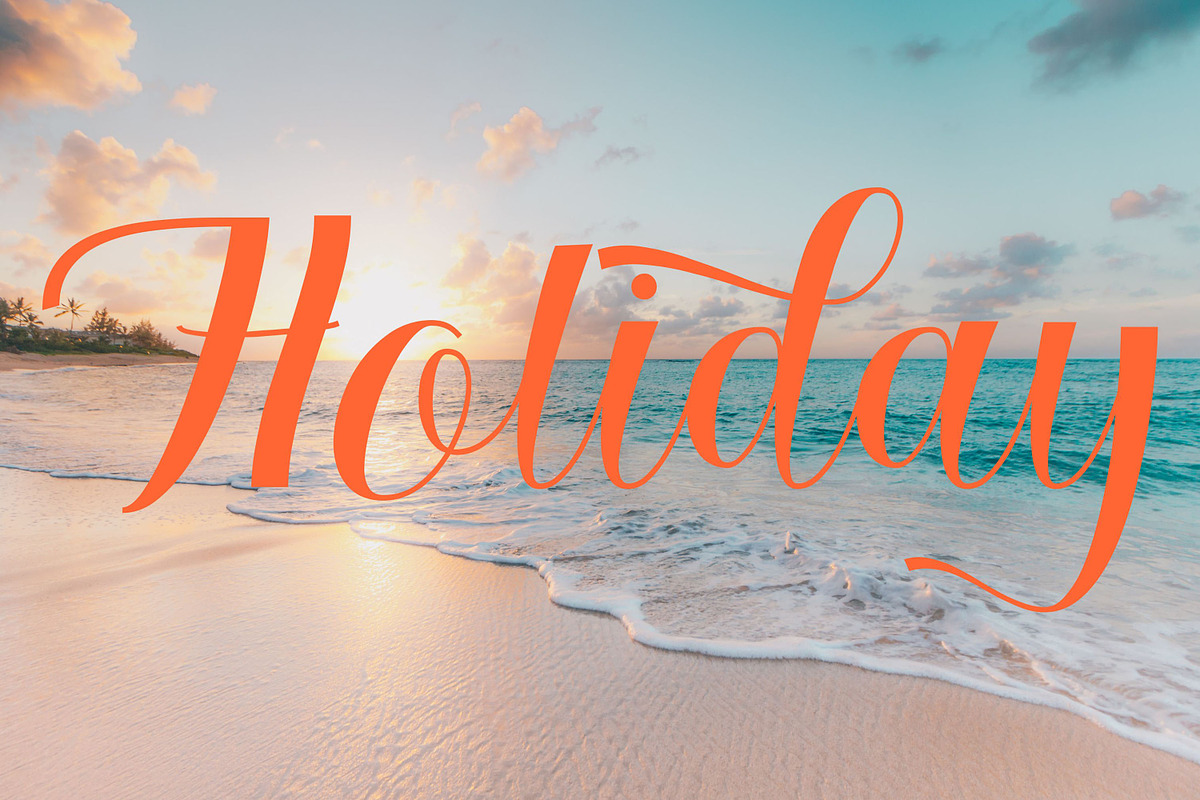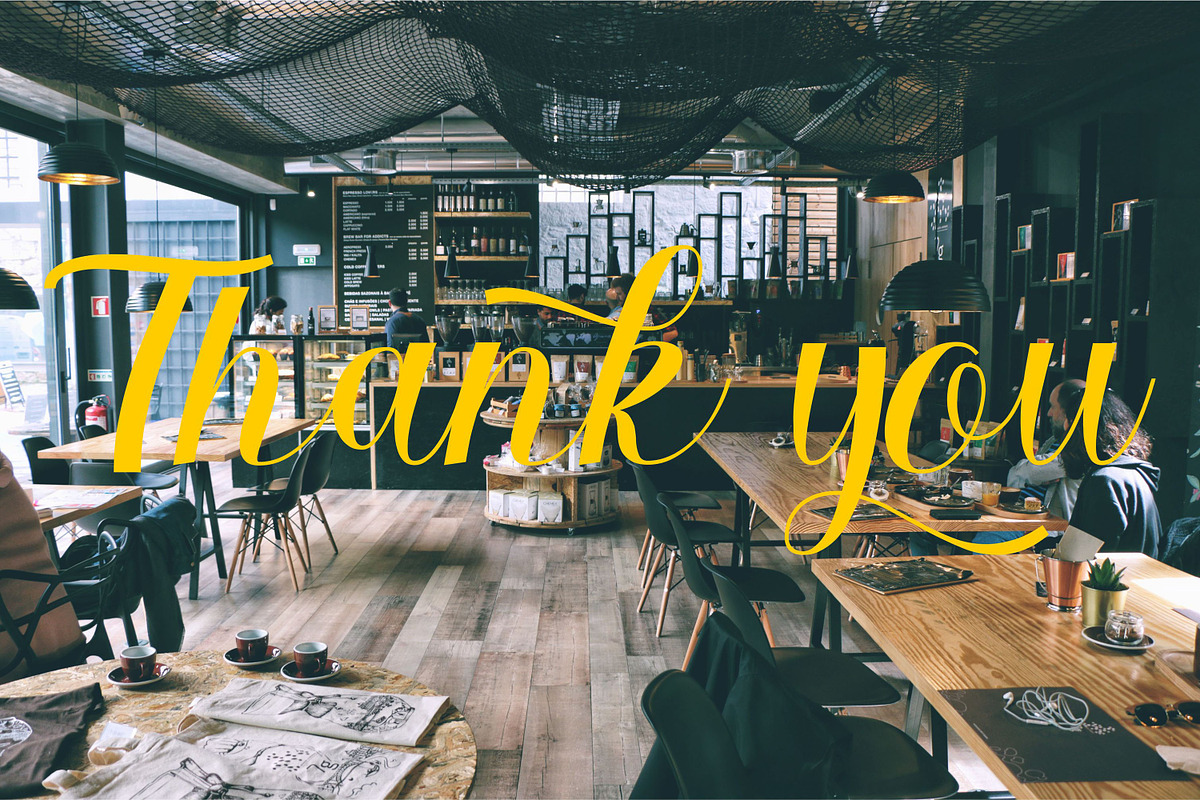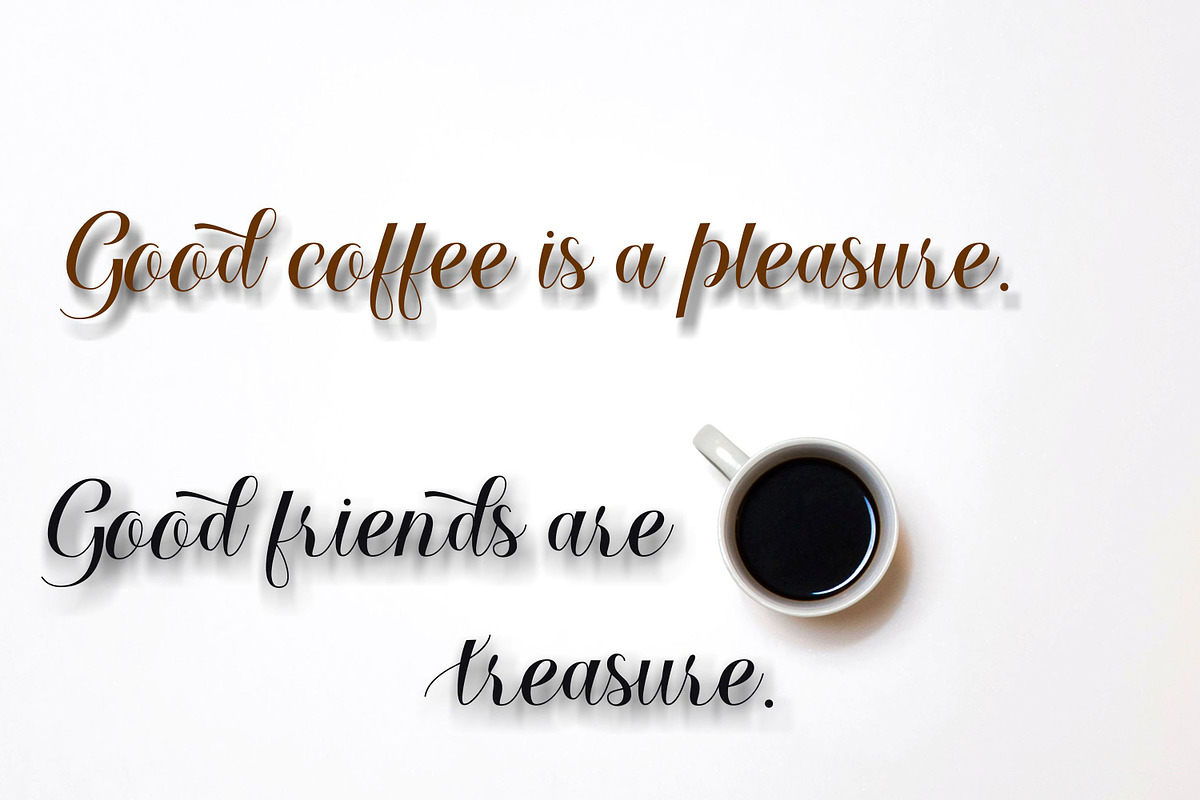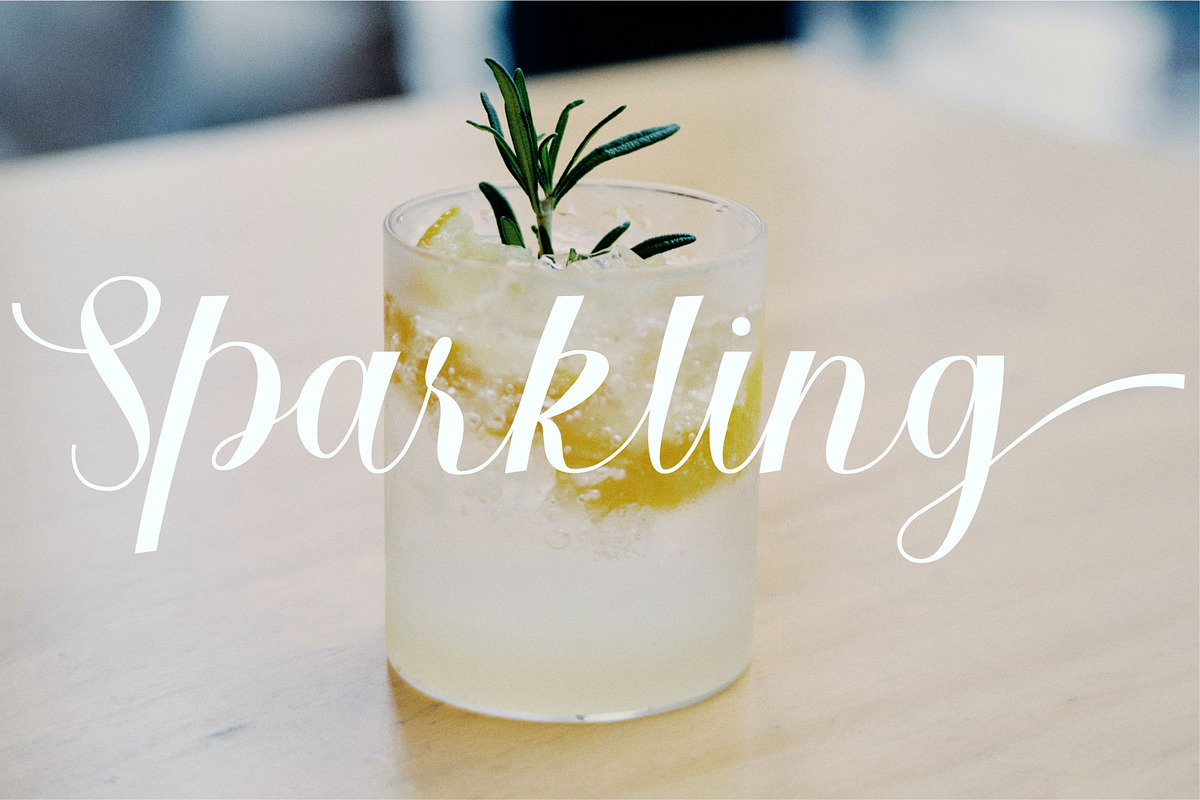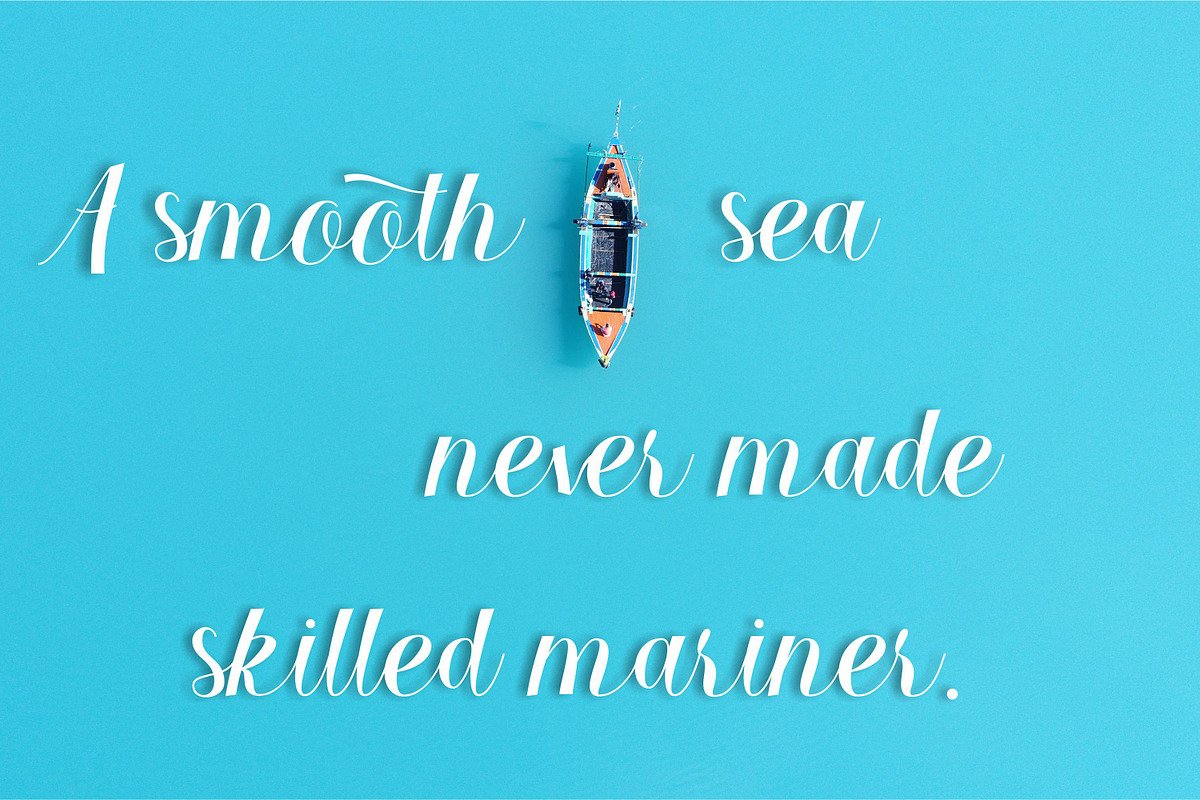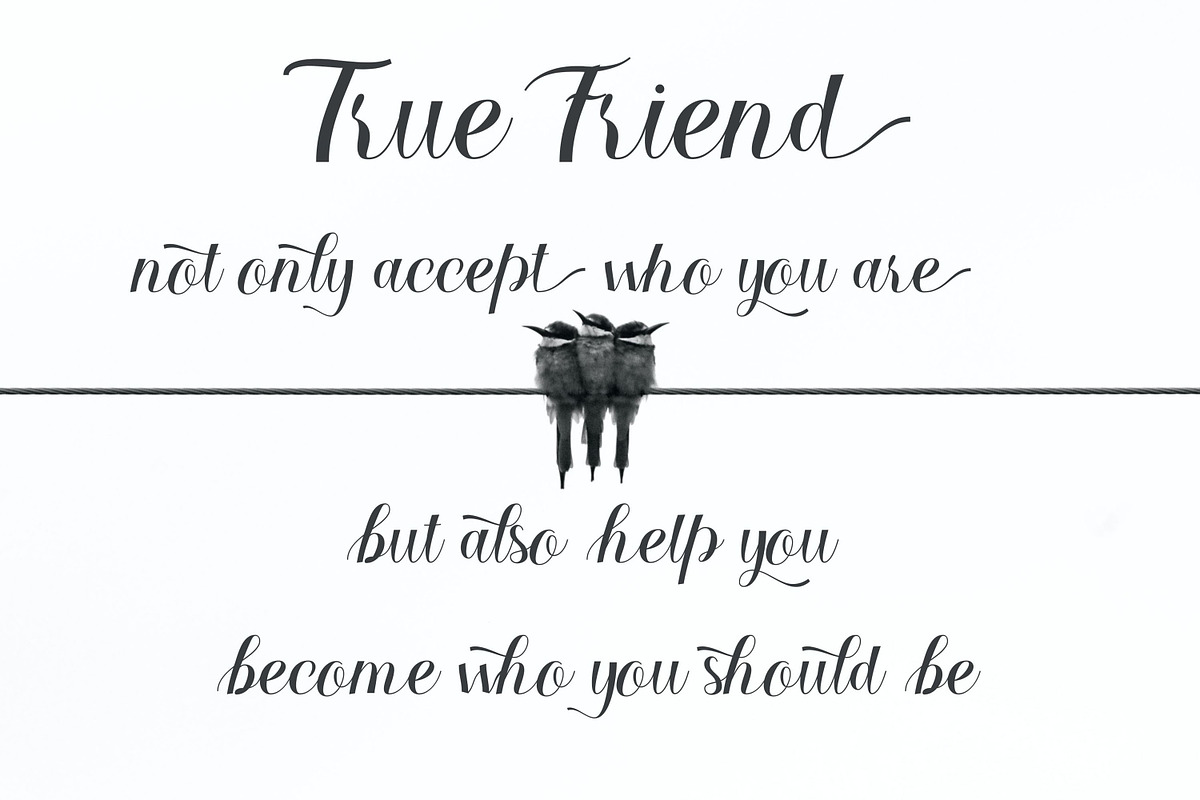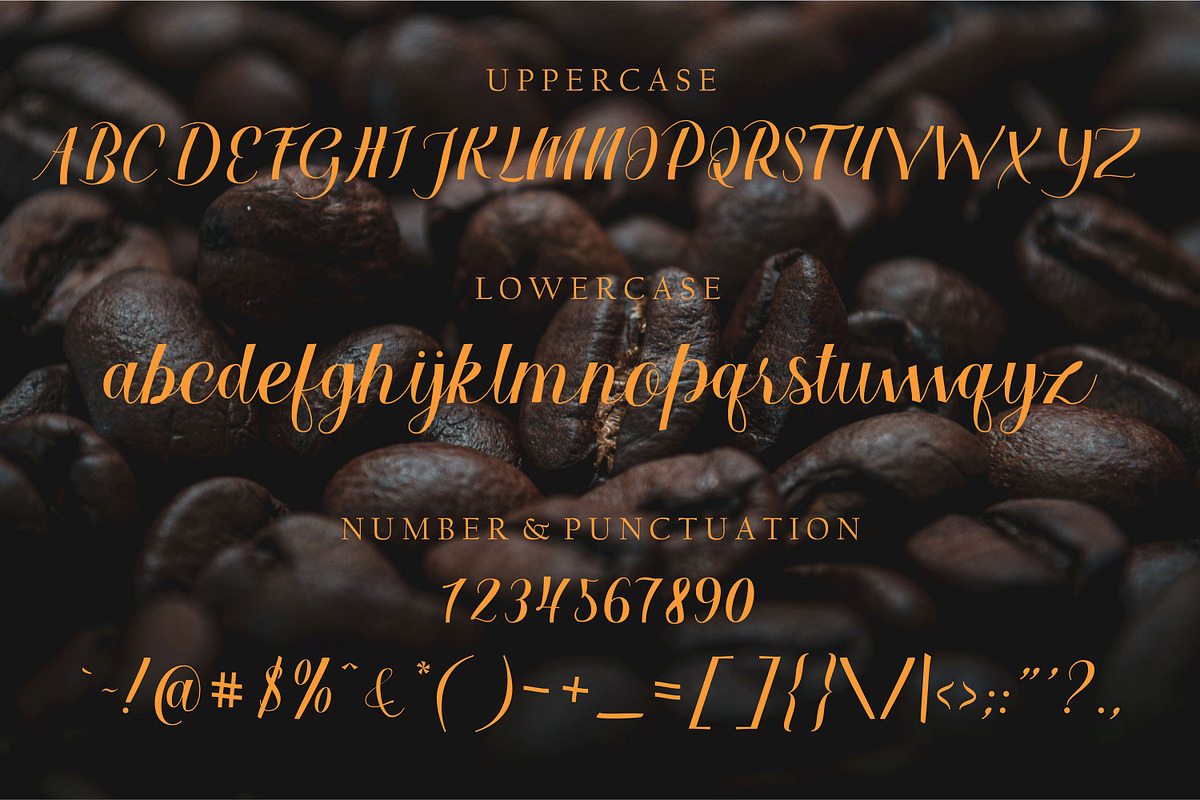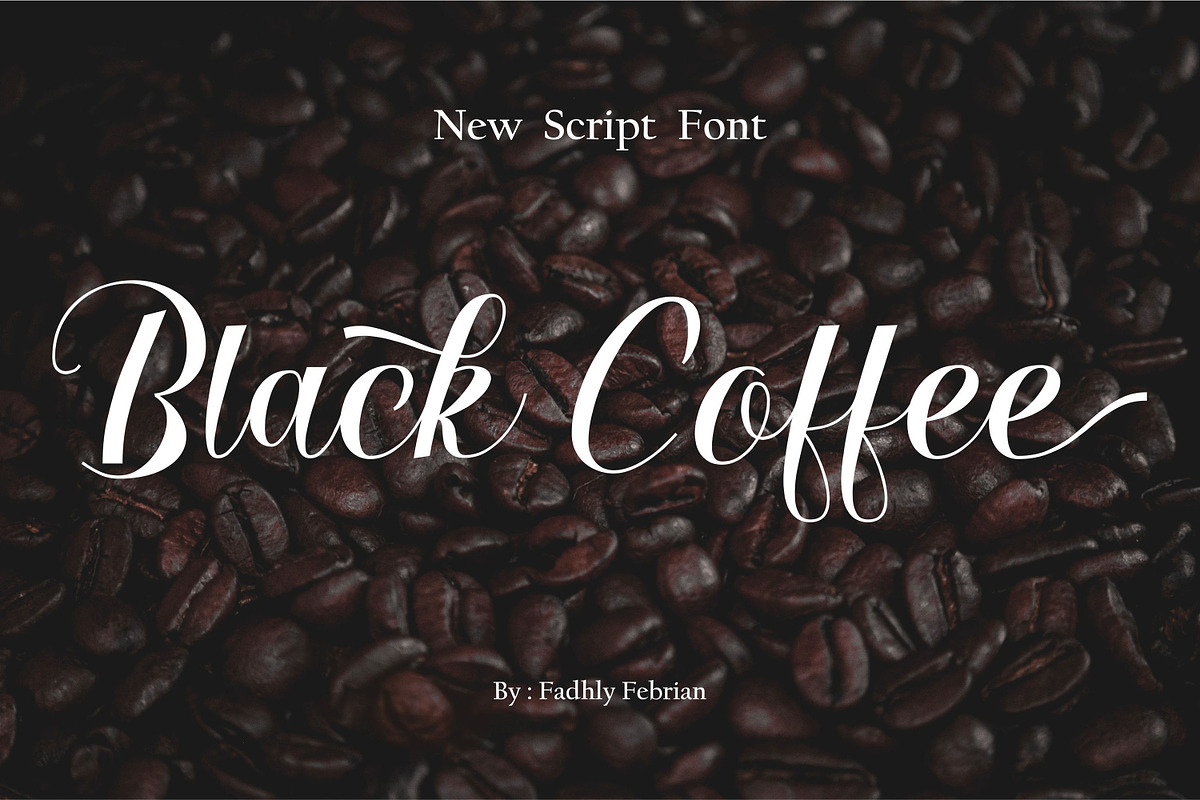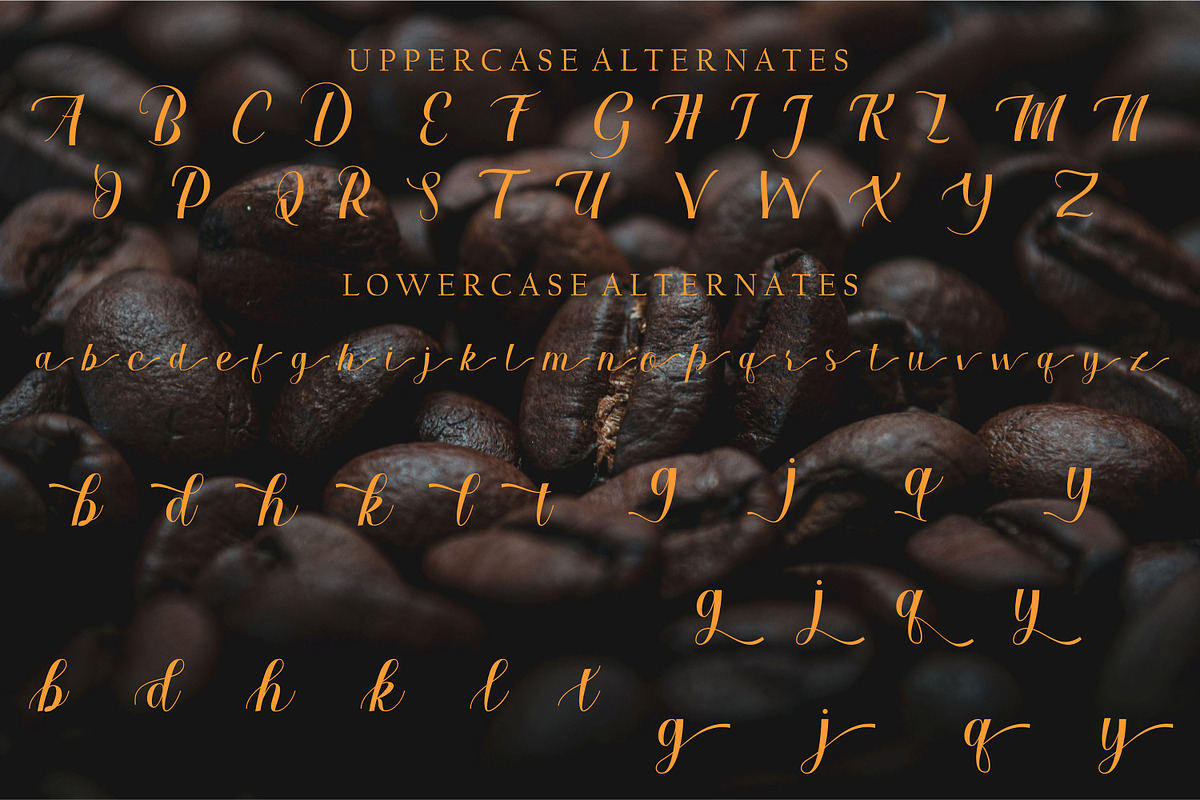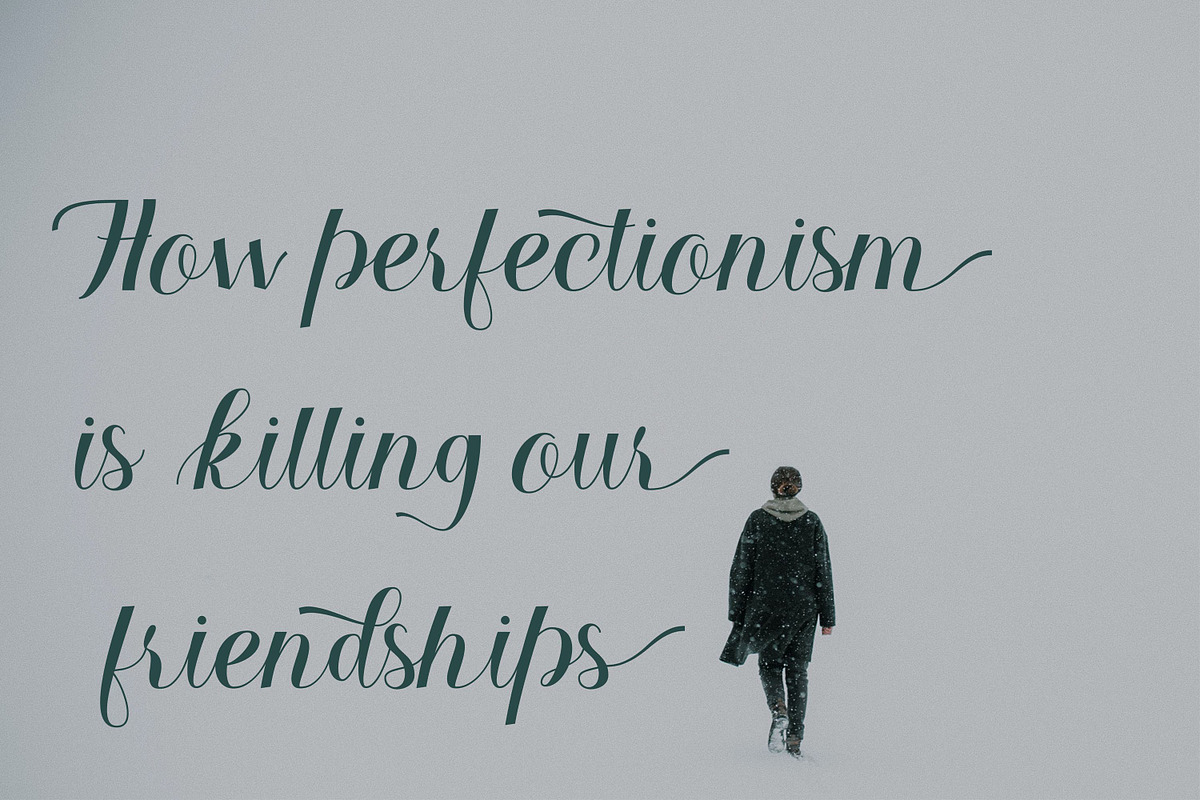
Black coffee
Black Coffee is a delicate and fashionable script font. It is perfect for any branding project such as logos, t-shirt printing, creative products, and more.
Font features :
- Uppercase beginning swash
- Lowercase ending swash